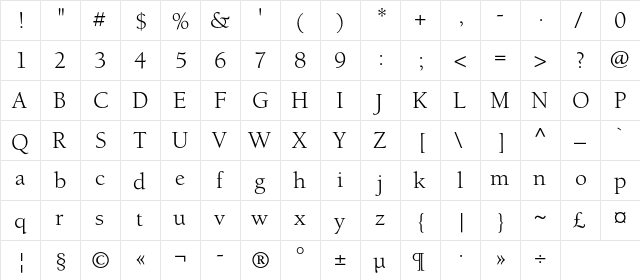
Alliance Regular
Design Context for Alliance Typeface
Alliance takes a measured approach to typography — its balanced proportions and neutral character make it a reliable workhorse for both digital and print work.
Pro Tip: Pair Alliance with a font of contrasting weight or personality to build a more expressive typographic hierarchy.